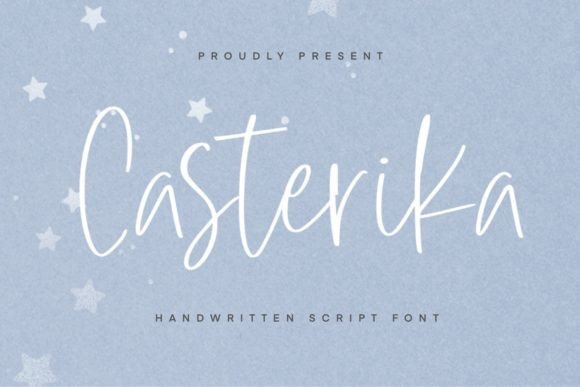
Introduction to Casterika Font
Casterika is a cute handwritten font.
Casterika is a cute handwritten font. This font is suitable for designs such as business cards, invitations, birthday greetings, social media and others
Casterika Font offers exceptional quality and versatility, making it a valuable addition to your design toolkit. Whether you’re creating for personal projects or commercial use, Casterika Font delivers professional results.